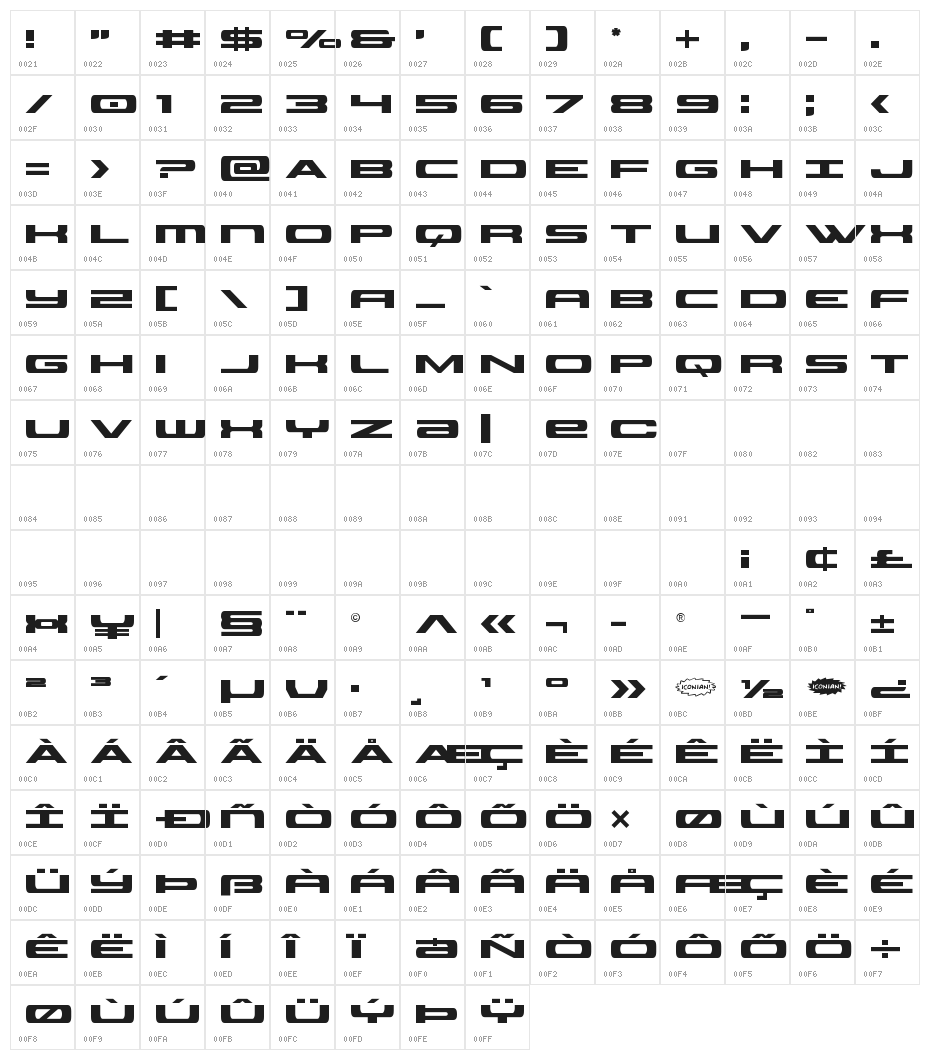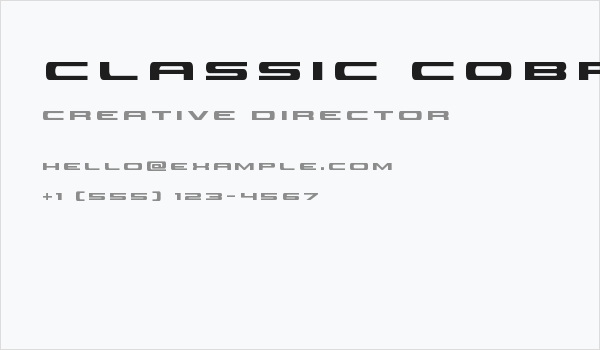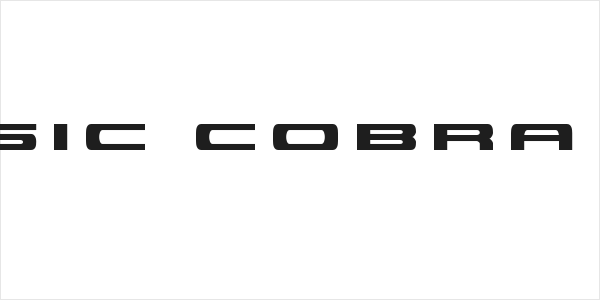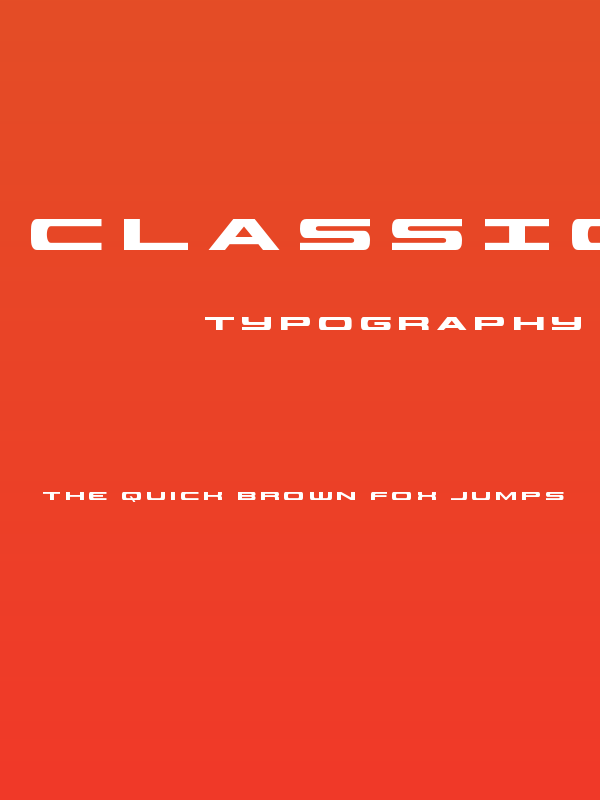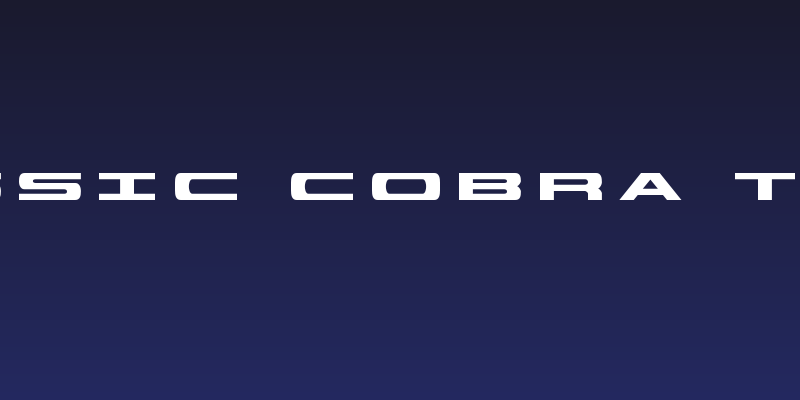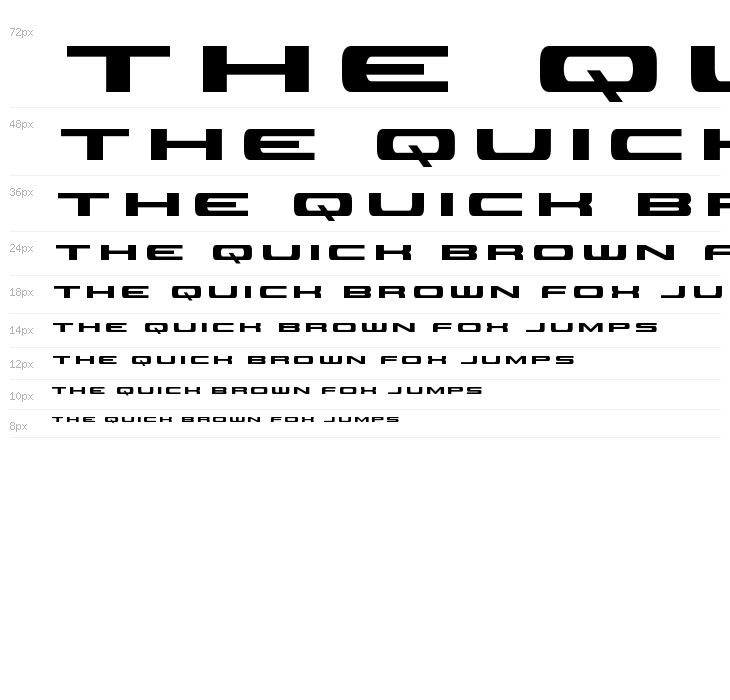
Classic Cobra Title Font
This font features a bold, futuristic design with a sleek and angular appearance. The characters are uniformly wide with sharp edges and a geometric style that gives a modern and dynamic feel. The uppercase letters are particularly striking, with a consistent height and width that create a strong visual impact. The lowercase letters maintain the same angular style, ensuring readability while preserving the font's unique aesthetic. The numerals are equally bold, with a design that complements the letters. Special characters are included, matching the overall style and ensuring versatility in usage. This font is ideal for projects that require a modern, tech-inspired look.
| Proposed Projects | Ideal for technology branding, video game titles, sci-fi movie posters, and modern advertising campaigns. |